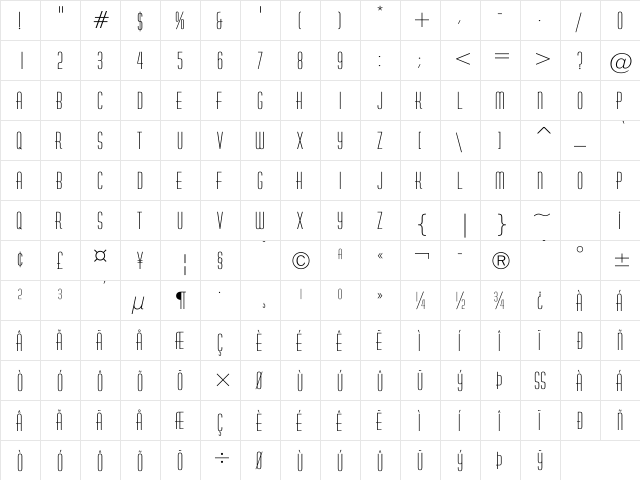
Markon Vertical Regular
Markon Vertical offers clean, dependable letterforms without strong stylistic allegiance, making it a practical choice for designers who need flexibility.